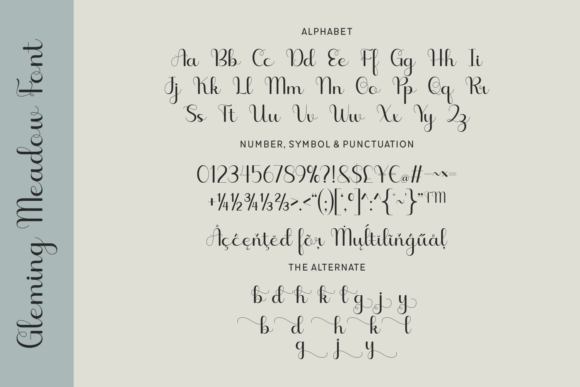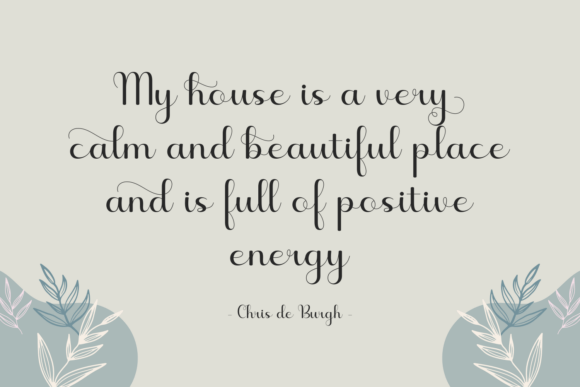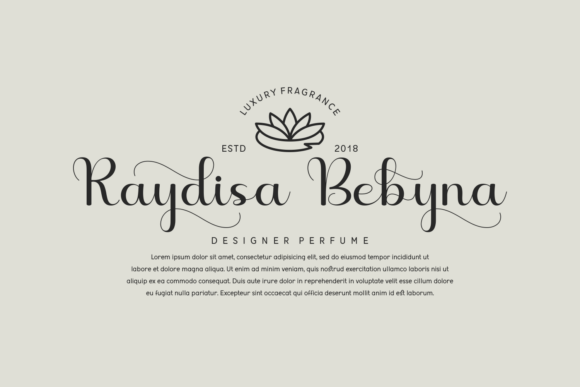
Introduction to Gleming Meadow Font
Gleaming Meadow is an elegant and graceful script font that combines delicate curves with timeless sophistication.
Its refined swashes and clean lines make it perfect for wedding invitations, logo designs, branding, and high-end product packaging Gleaming Meadow exudes charm and style, adding a natural and romantic touch to all your creative projects.
Key Features of Gleming Meadow Font
Why Choose Gleming Meadow Font?
Gleming Meadow Font offers exceptional quality and versatility, making it a valuable addition to your design toolkit. Whether you’re creating for personal projects or commercial use, Gleming Meadow Font delivers professional results.